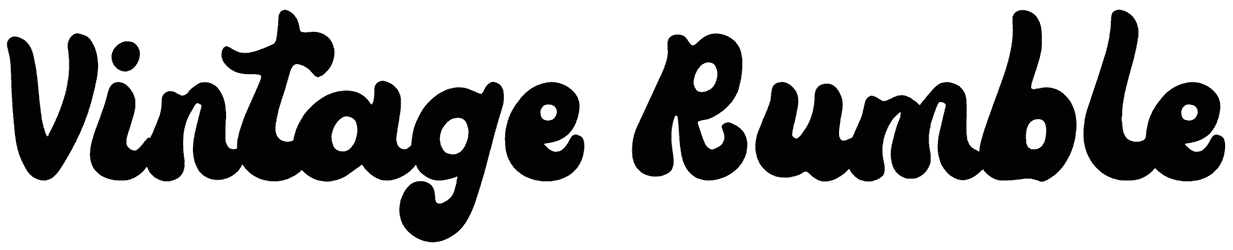
Vintage Rumble Font
With Vintage Rumble, you will no longer need any other combination. This groovy font is cast in the form of a hippie font and is skillfully designed to become the favorite font of any taste. Vintage Rumble, in addition to preserving the effects of contemporary calligraphy, has a childish and playful feel that is a successful choice for branding, designing cosmetic logos, or fashion and clothing.